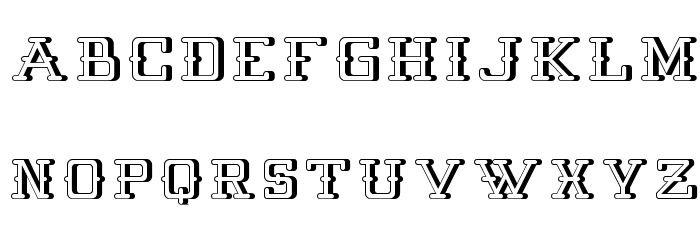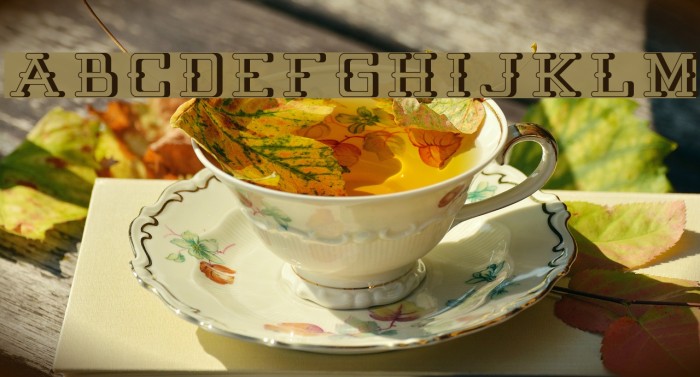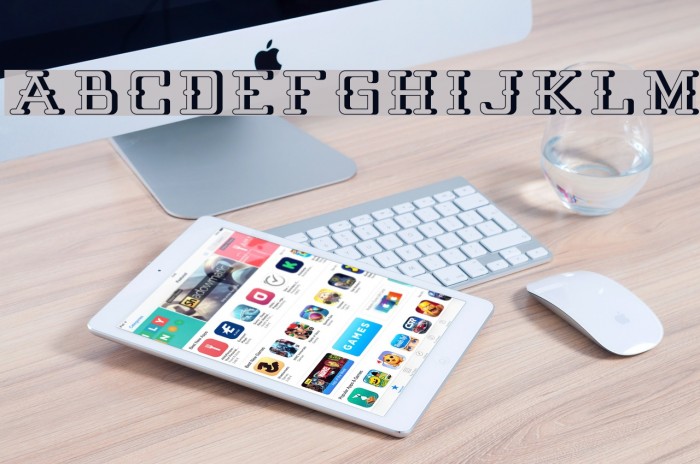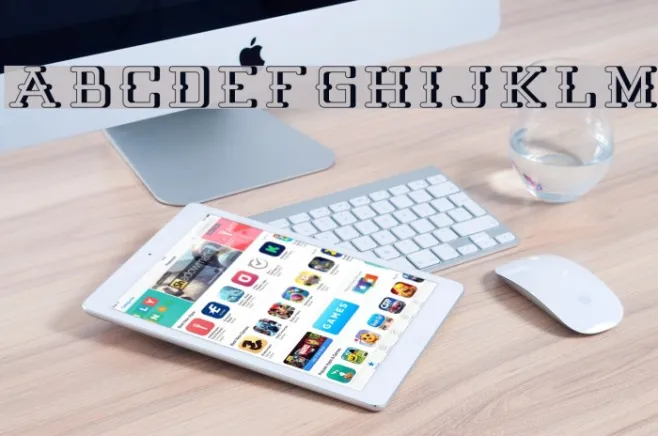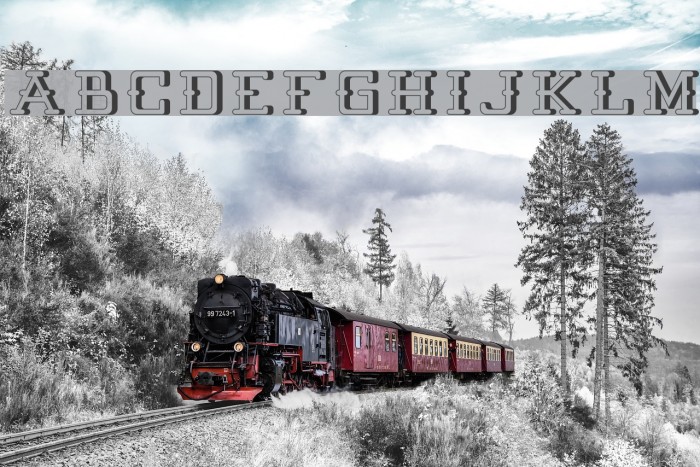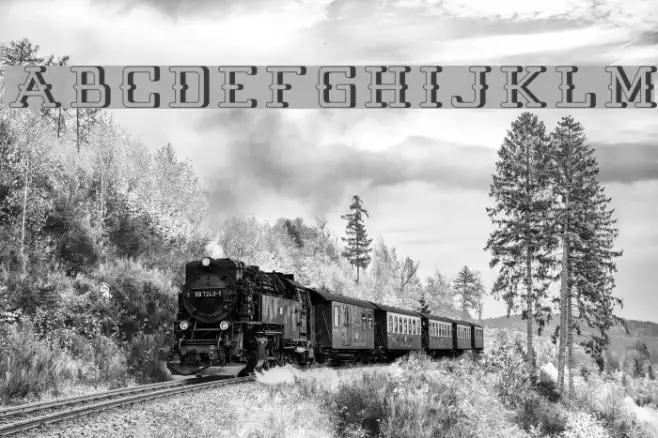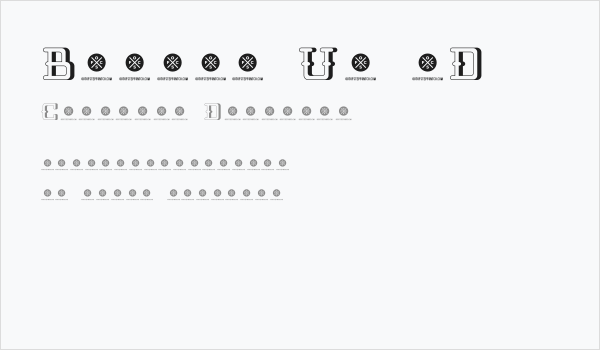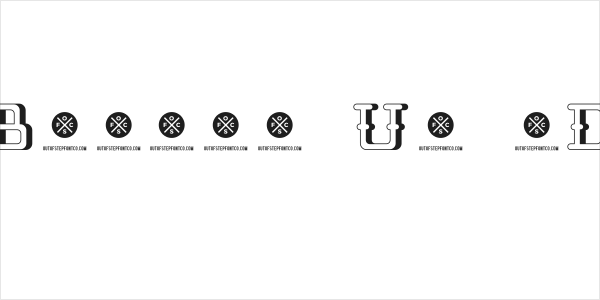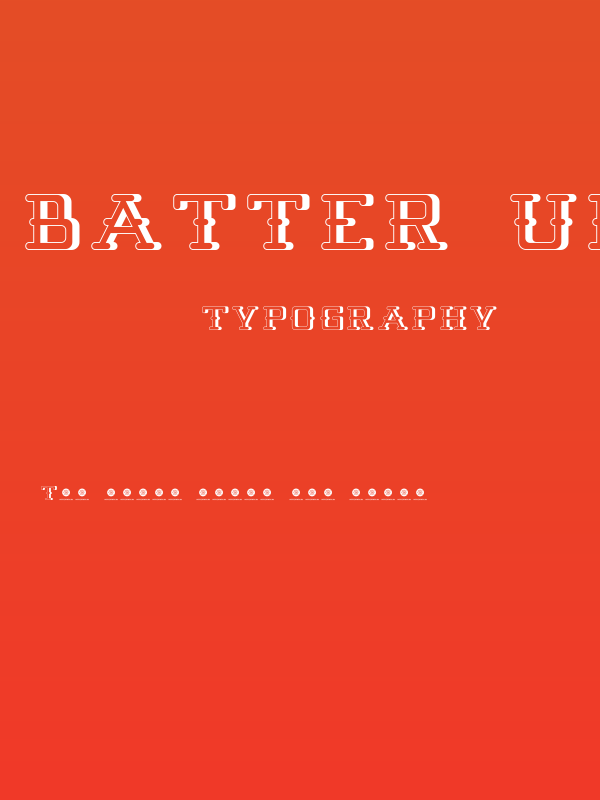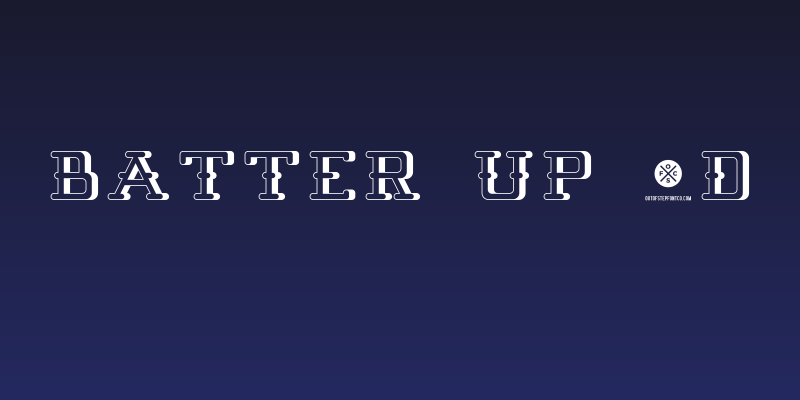
Batter Up 3D Font
Batter Up 3D Description
This font features a bold, three-dimensional design that evokes a sense of strength and playfulness. Each character is outlined with a shadow effect, giving it a distinct 3D appearance. The letters are uppercase, with a consistent width and height, creating a uniform look. The style is reminiscent of vintage sports or varsity themes, making it ideal for projects that require a bold statement. The font's unique design elements, such as the shadow and outline, add depth and character, making it stand out in any design context.
Overall StyleVintage
Use CaseLogos, Headlines
Proposed ProjectsIdeal for sports team logos, event posters, or retro-themed branding.